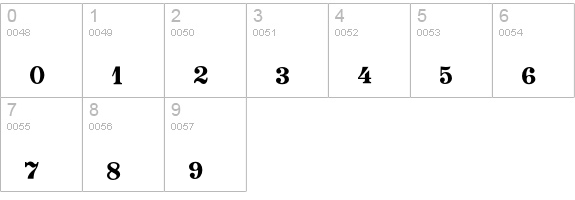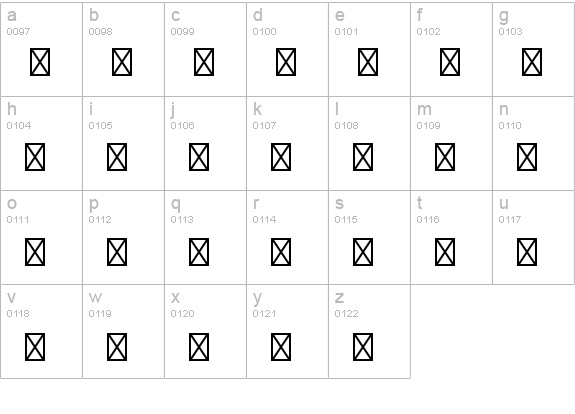
Sonata Std Medium Font Details
Sonata Std Medium is a balanced, medium-weight variant in the Sonata typeface family \xE2\x80\x94 well suited to sub-headlines, navigation, and balanced editorial work.
Sonata Std Medium font is a versatile and elegant typeface that exudes a timeless charm. With its balanced proportions and graceful curves, this font is perfect for a wide range of design projects. Whether you are creating a logo, designing a website, or crafting a professional document, Sonata Std Medium font will add a touch of sophistication and refinement to your work. This font is characterized by its medium weight, making it suitable for both headings and body text. Its legibility and clarity ensure that your message will be conveyed with ease and precision. The balanced letterforms and well-defined serifs give Sonata Std Medium font a classic and traditional feel, while still maintaining a modern edge. What sets Sonata Std Medium font apart is that it is freely available to download at FontsMarket.com. This means that you can enhance your designs with this beautiful typeface without any cost. Whether you are a professional designer or a hobbyist, having access to high-quality fonts like Sonata Std Medium font can greatly enhance your creative endeavors. So why wait? Download Sonata Std Medium font today from FontsMarket.com and elevate your designs to new heights. Embrace the elegance and versatility of this font and let it bring your projects to life. With Sonata Std Medium font, you can achieve a polished and professional look effortlessly.